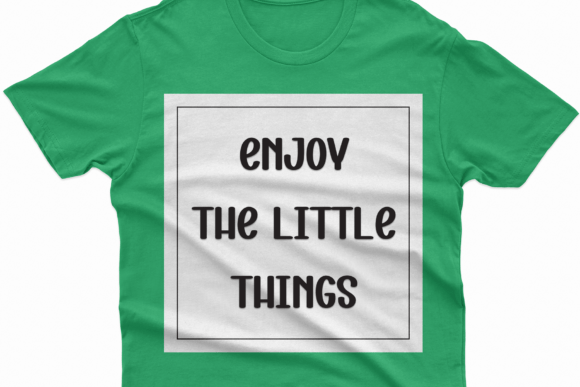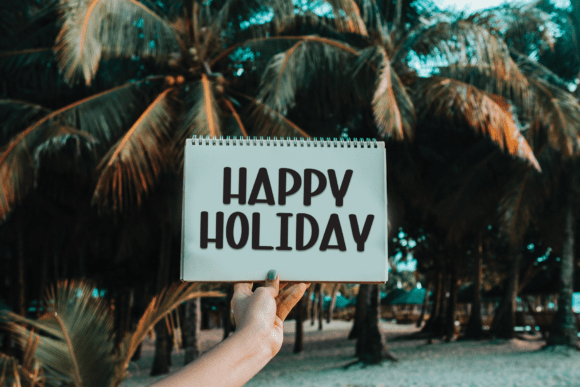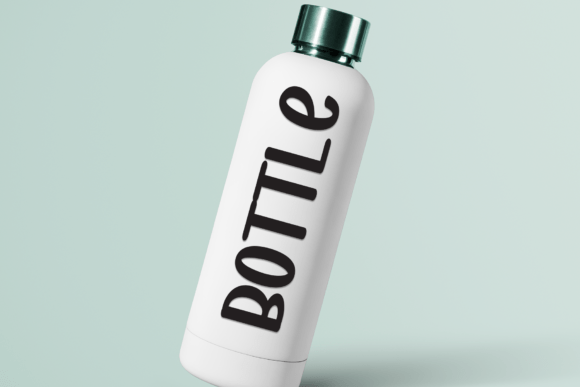
Introduction to Shine Summer Font
As a designer, have you ever felt like your creative project is missing that perfect finishing touch? You know, the one that takes your design from good to great? For me, it’s always about finding the right font to bring my ideas to life. And, let me tell you, I’ve stumbled upon something truly special – the Shine Summer Font.
This gorgeous display font is designed to add warmth and clarity to any design project. With its clean structure and approachable style, it’s perfect for branding, headlines, and everyday designs. Whether you’re working on a high-quality design resource or a simple free download, the Shine Summer Font is sure to elevate your work.
What makes this font truly valuable is its ability to offer readability and charm, making every message feel genuine and inviting. And, with its balanced letterforms, you can be sure that your design will stand out from the crowd.
Key Features of Shine Summer Font
- Perfect for summer-themed designs, weddings, and other events, with a unique and eye-catching style
Honest Review: Shine Summer Font
I recently had the chance to work with the Shine Summer Font, and I must say it’s a fantastic addition to any design resource library. Its modern, playful vibe is perfect for creative projects that need a bit of a pop.
- What works well: ✨ The Shine Summer Font is incredibly versatile and can be used for a wide range of design applications, from social media graphics to wedding invitations. The high-quality design ensures that it looks great on any background, including transparent backgrounds.
- ⚠️ The Shine Summer Font may not be suitable for formal or professional designs, as its playful nature may come across as unprofessional in some contexts.
Overall, I’m impressed with the Shine Summer Font and would recommend it to designers looking for a fun and modern font for their creative projects.
The Shine Summer Font is ideal for creating eye-catching graphics for summer-themed creative projects, such as beach invitations, pool party flyers, or summer-themed social media posts. The font’s transparent background feature makes it easy to overlay on top of images or videos.